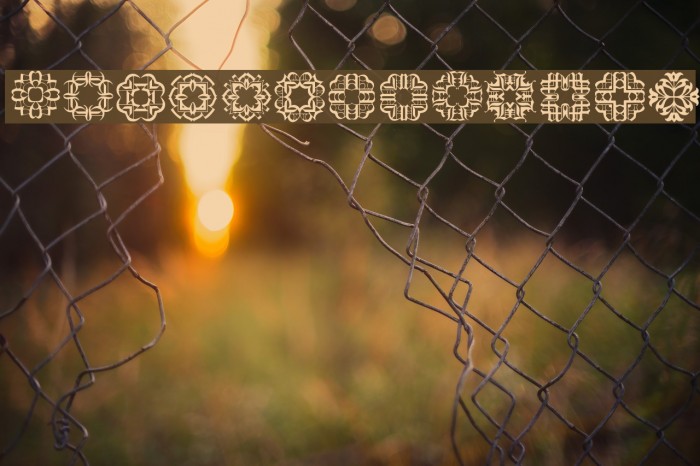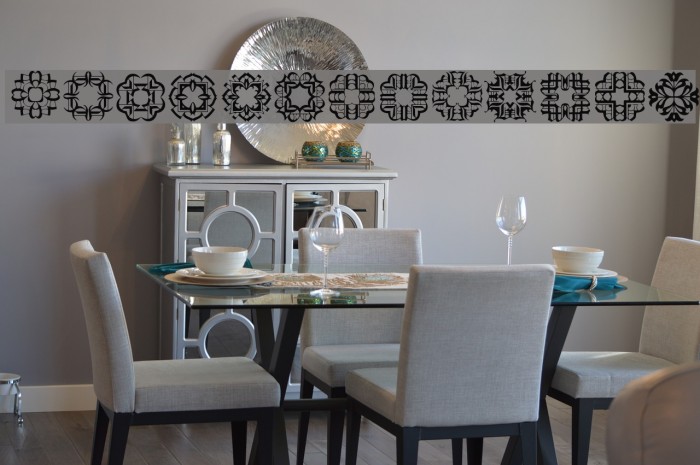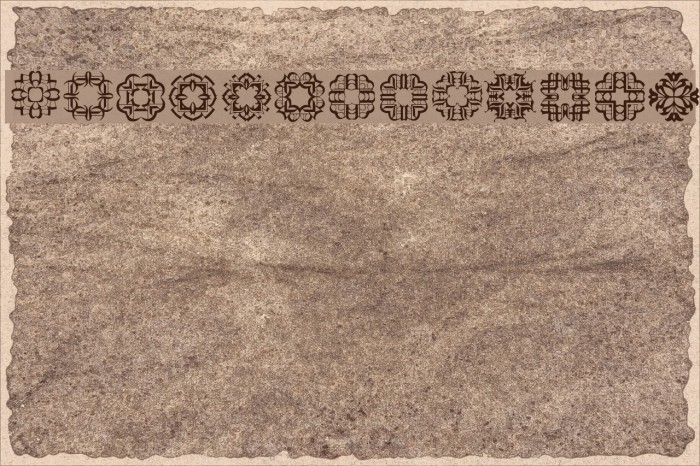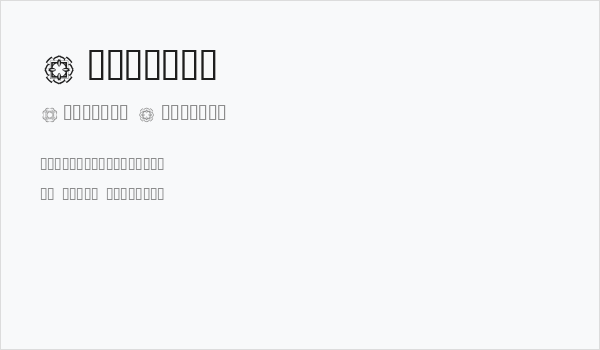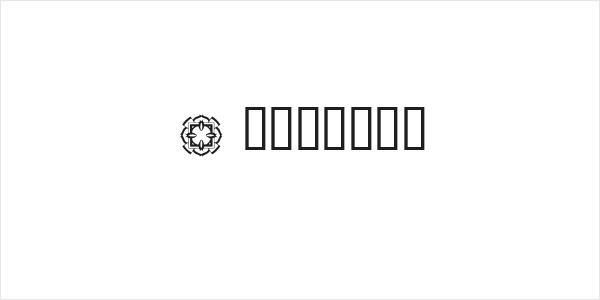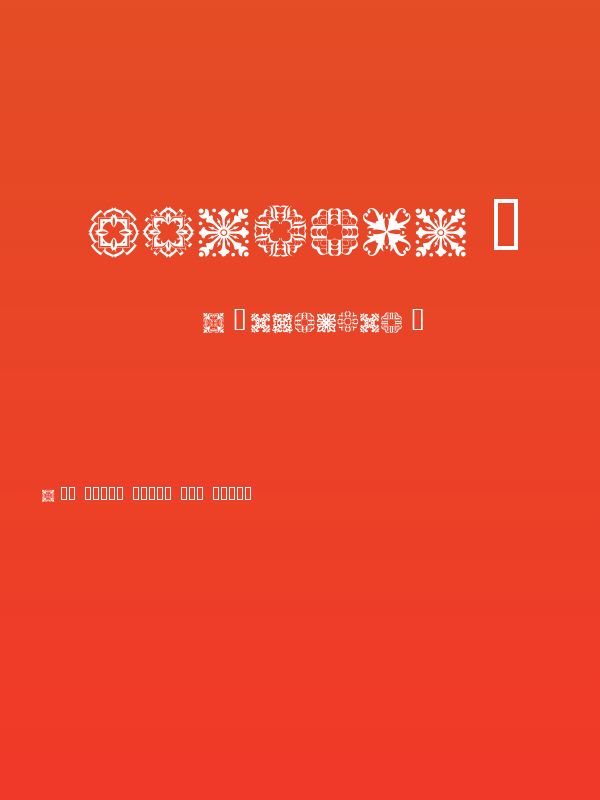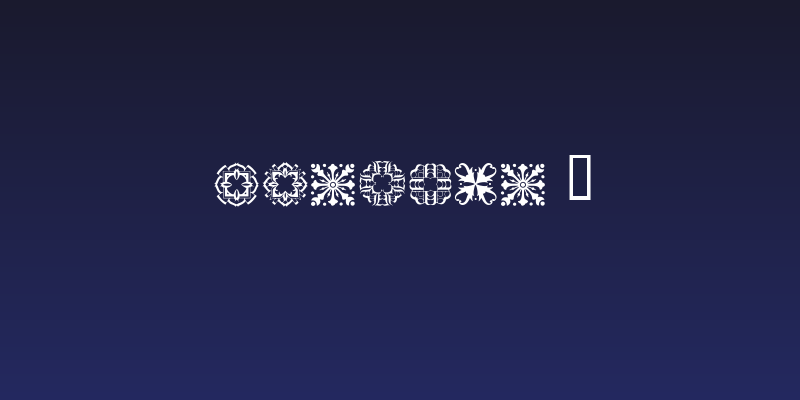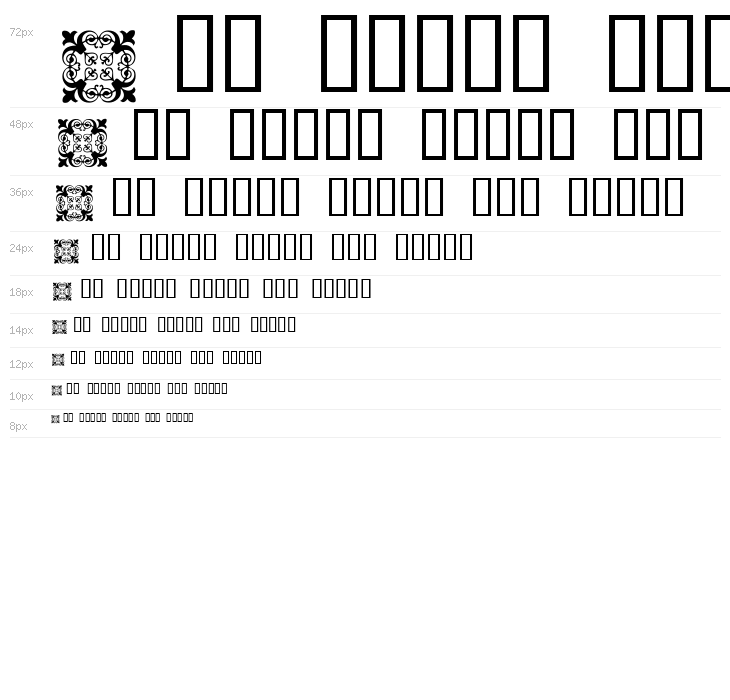
Designs1 Font
Designs1 Description
A collection of intricate, ornamental decorative motifs with symmetrical, floral, and geometric patterns. The designs are bold, black, and highly detailed, suitable for embellishment or as standalone graphic elements.
| Overall Style | Decorative, Ornamental, Vintage |
| Use Case | Decorative elements, Borders, Frames, Graphic embellishments |
| Proposed Projects | Borders, invitations, certificates, packaging, textile prints, digital scrapbooking, decorative dividers. |